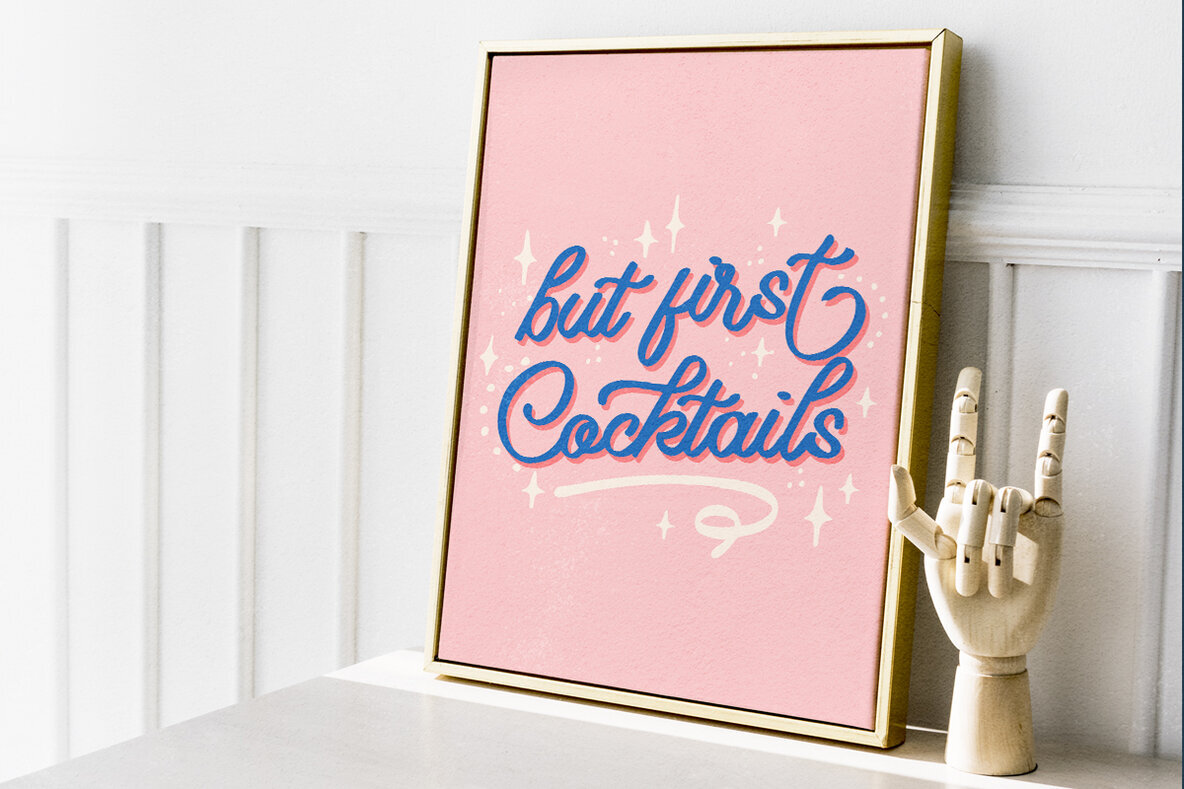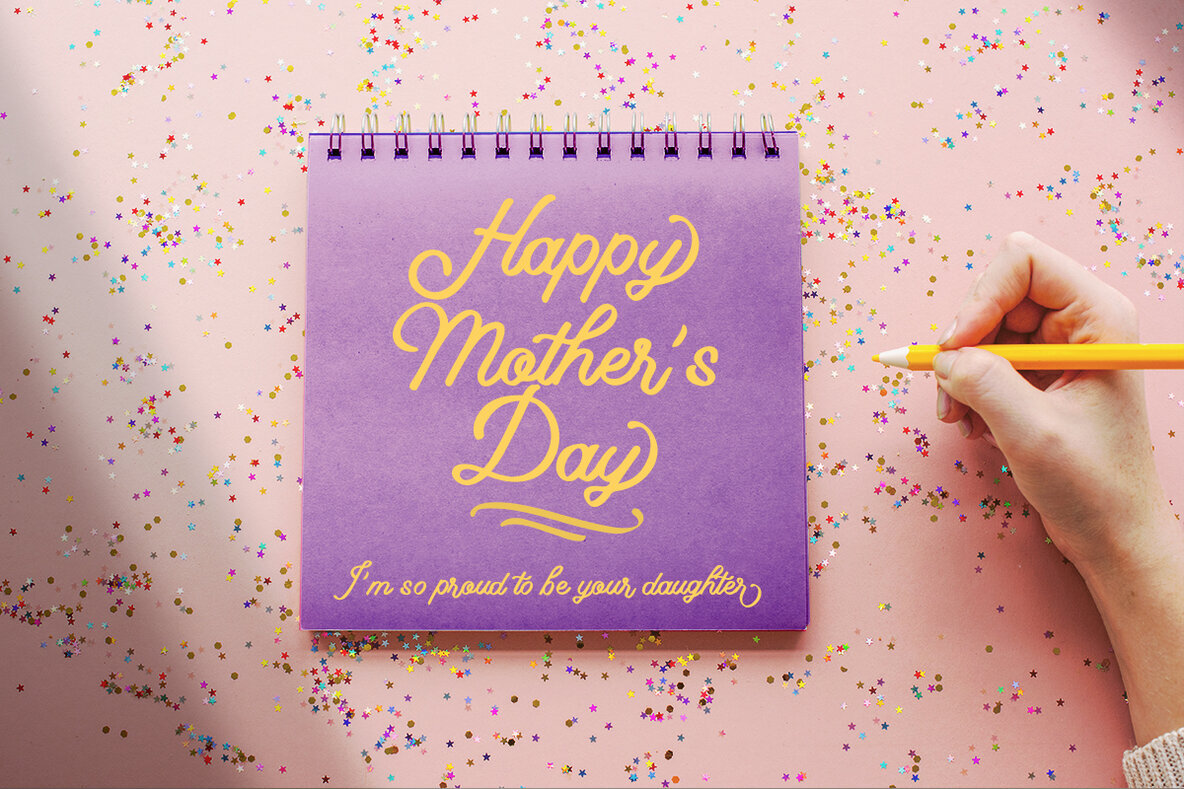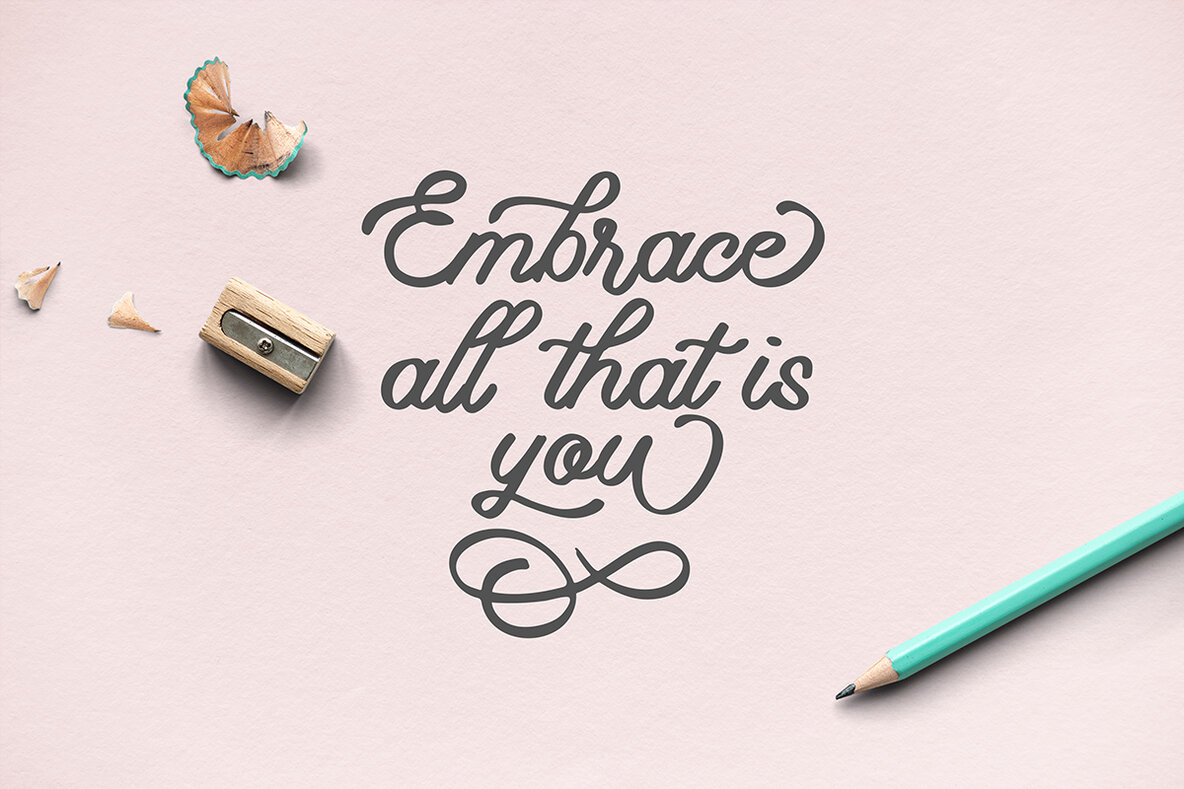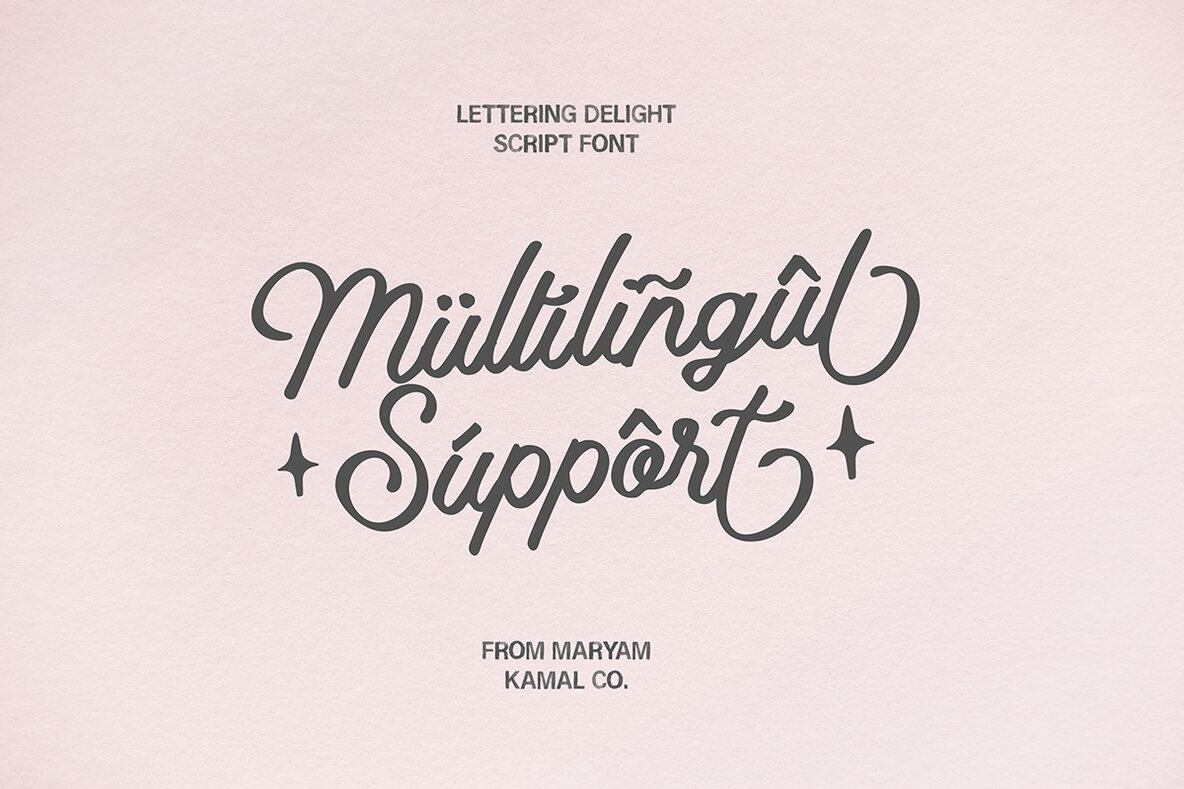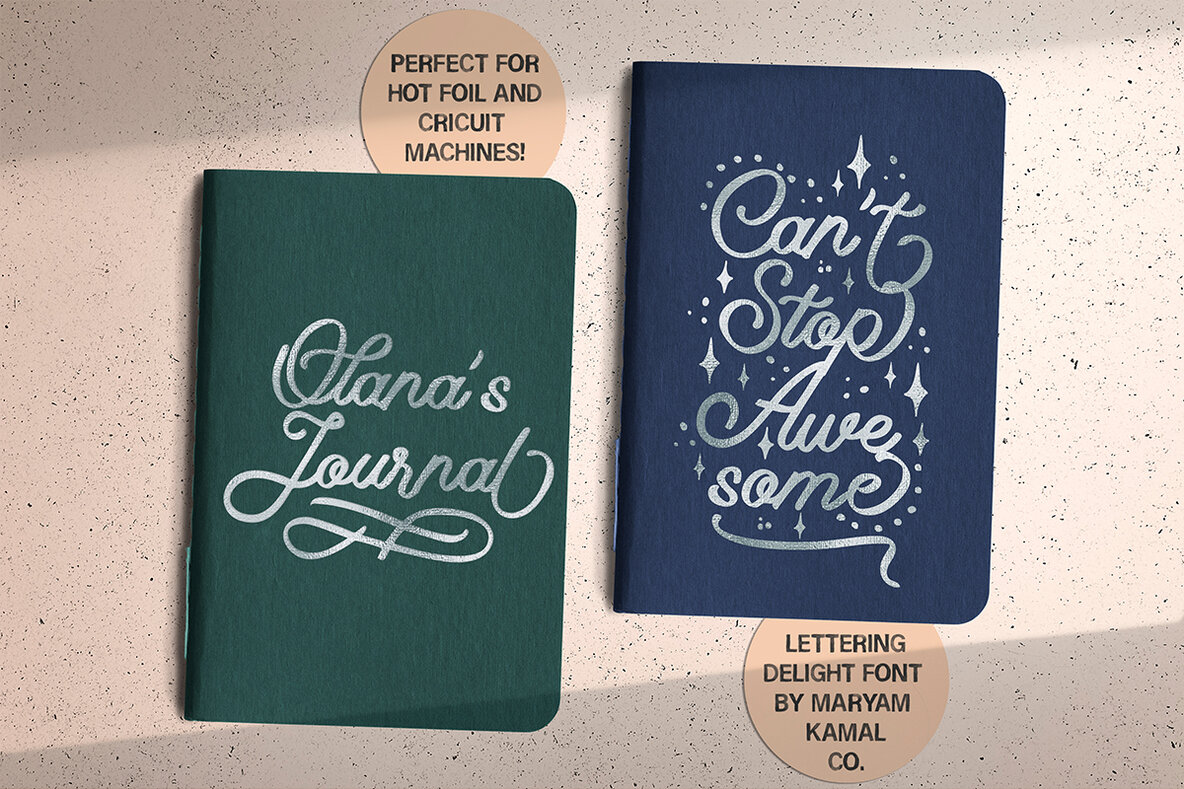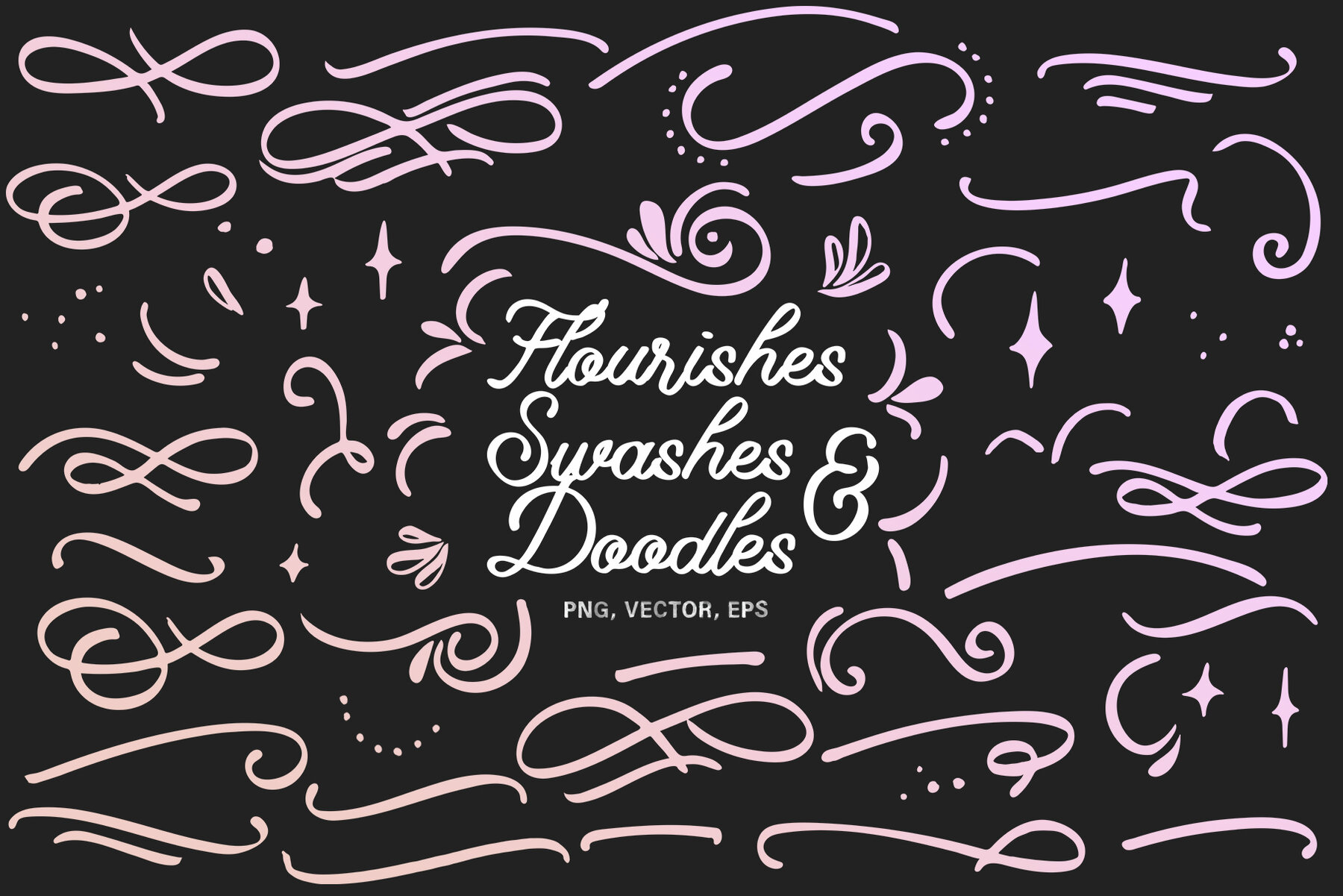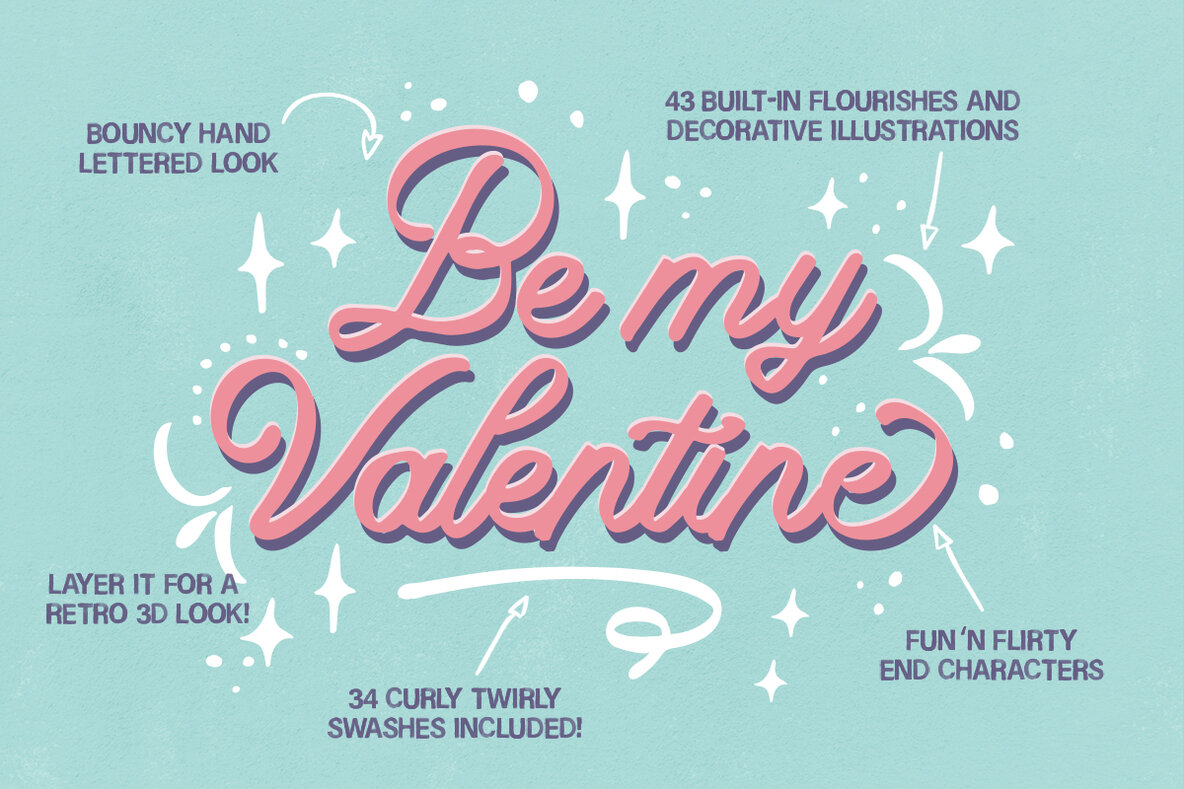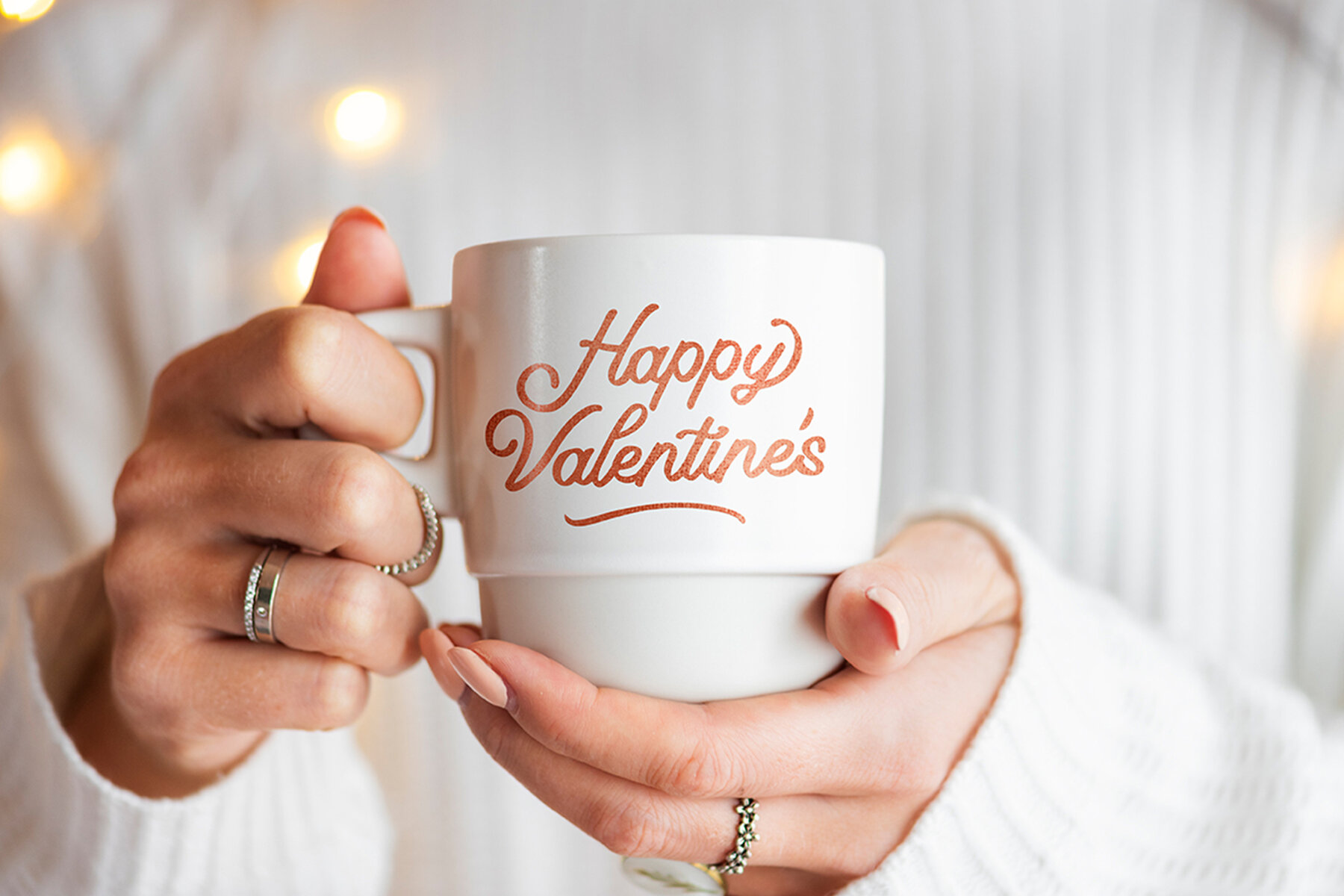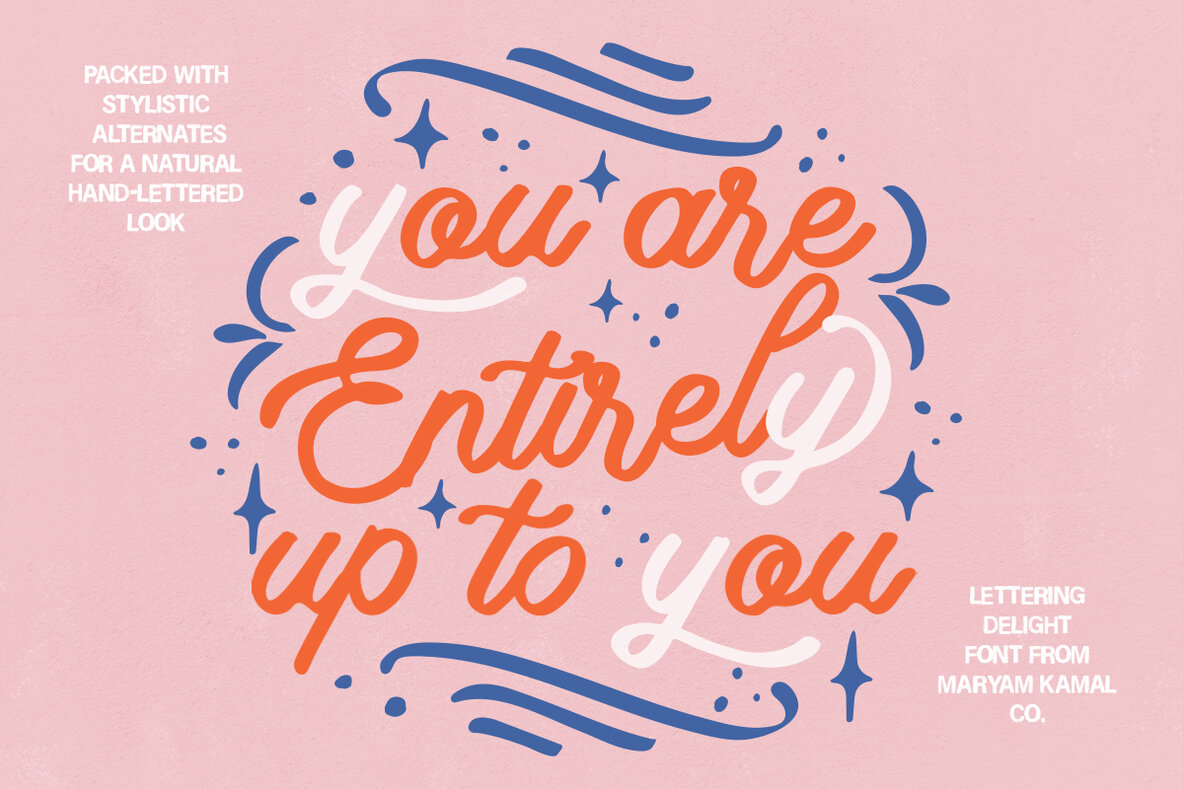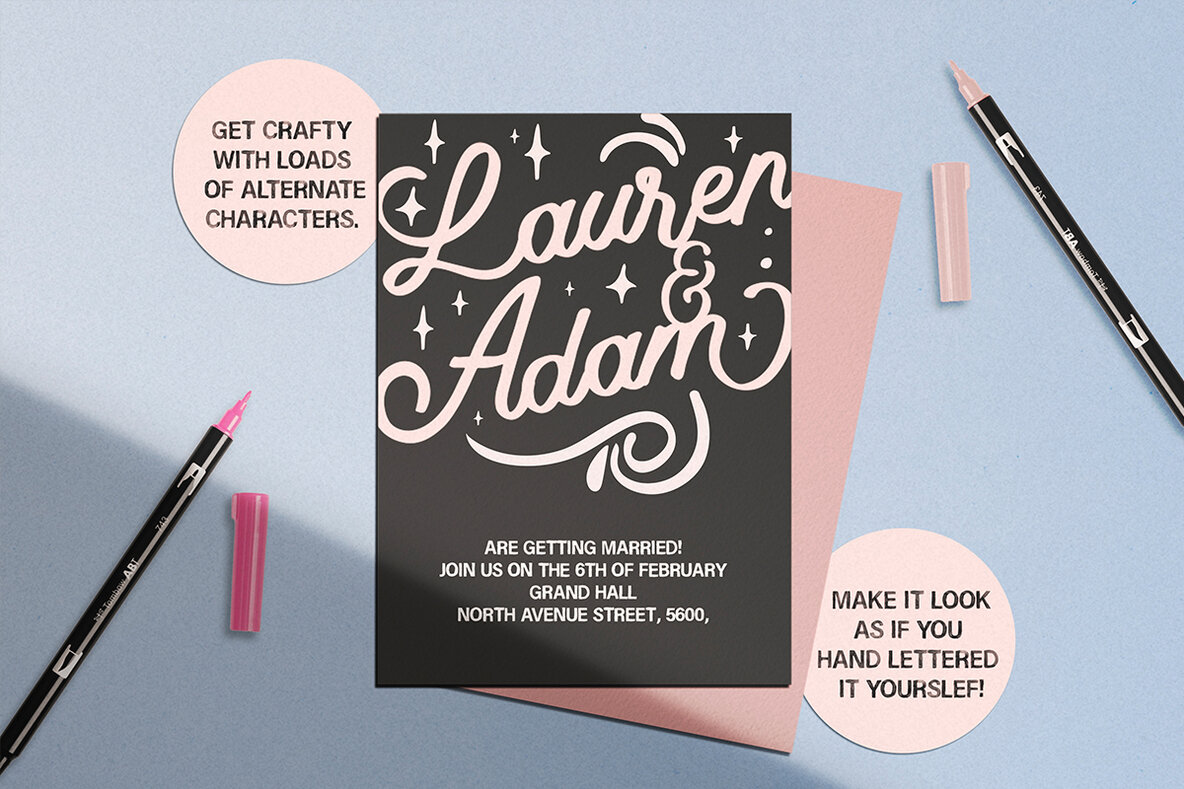
Lettering Delight Font
Meet the Lettering Delight script font, crafted especially for lettering enthusiasts. This font combines the playful charm of monoline design with a hand-lettered feel, making it ideal for various occasions. Whether you're preparing Valentine's Day creations or Mother's Day projects, this font's fun and flirty style will meet your design needs. The Lettering Delight font is incredibly adaptable, perfect for use in hot foil, stamping, card design, t-shirts, mugs, merchandise, wall art, and quotes. Whatever your crafting endeavor, this font will bring a sweet, feminine touch to your work. The script font is widely supported across most software, including Canva, ensuring accessibility for all users.Lettering Delight: A Quirky Script Font by Maryam Kamal
Versatile Design Applications
Features That Enhance Creativity